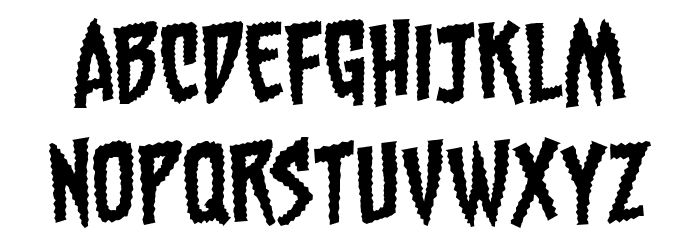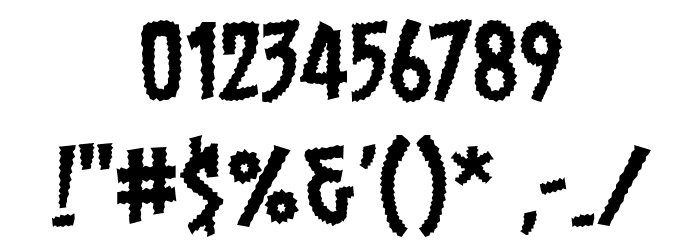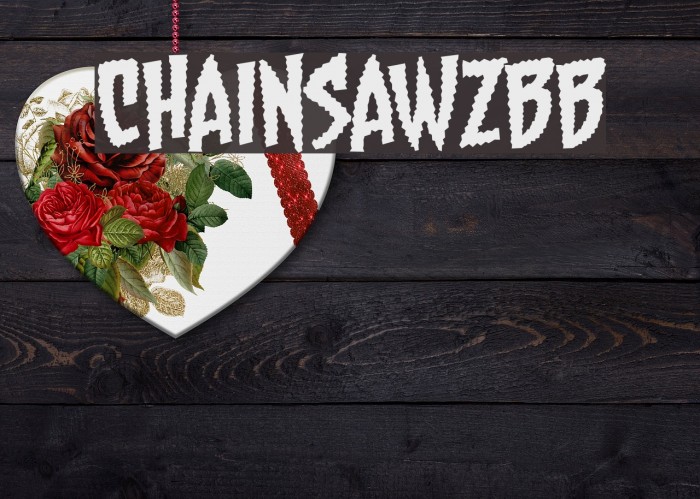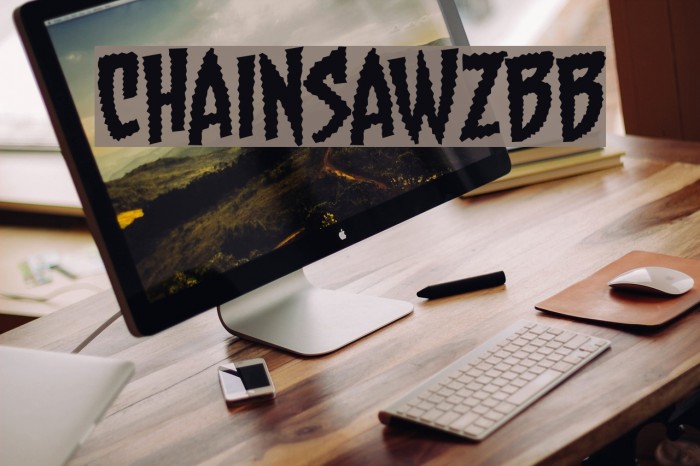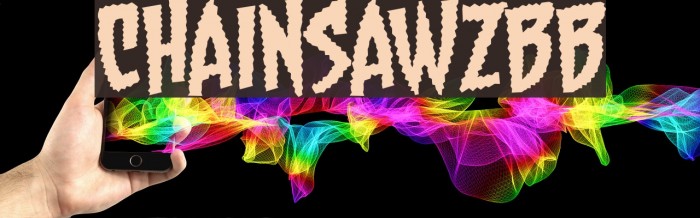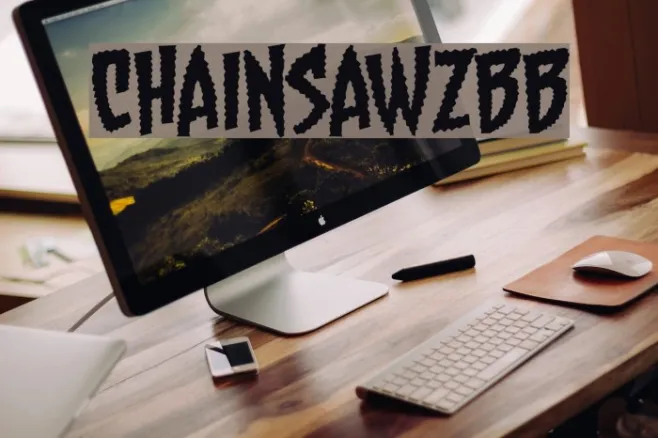
ChainsawzBB Font
This font features a bold and jagged design, reminiscent of chainsaw blades with its sharp, serrated edges. The characters are uppercase and maintain a consistent height, giving a uniform appearance despite their rugged style. The font exudes a sense of intensity and edginess, making it ideal for projects that require a dramatic and impactful visual statement. The numbers and special characters follow the same jagged pattern, ensuring a cohesive look across all text elements.
A bold, jagged font with a chainsaw-like edge, perfect for dramatic designs.
- Proposed Projects: Ideal for horror-themed posters, Halloween invitations, edgy branding, or any project needing a bold, impactful typeface.